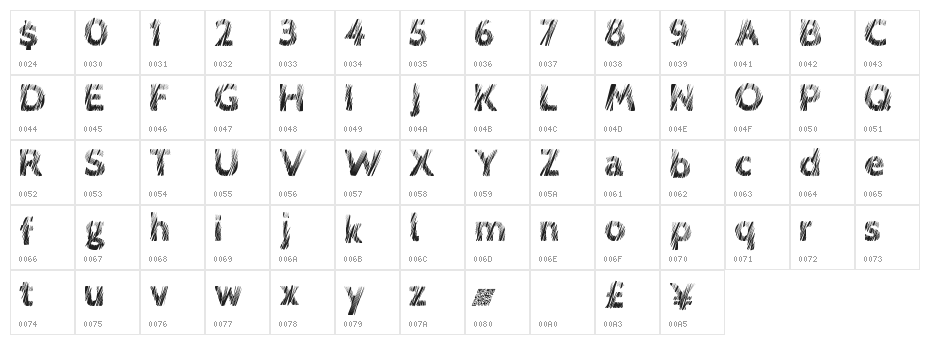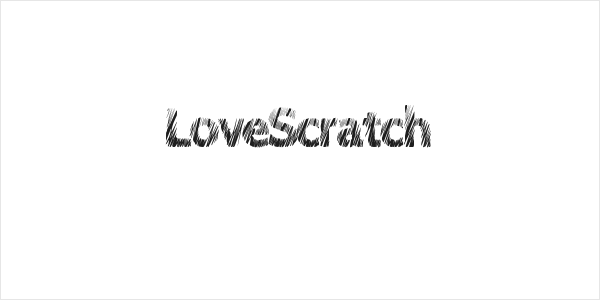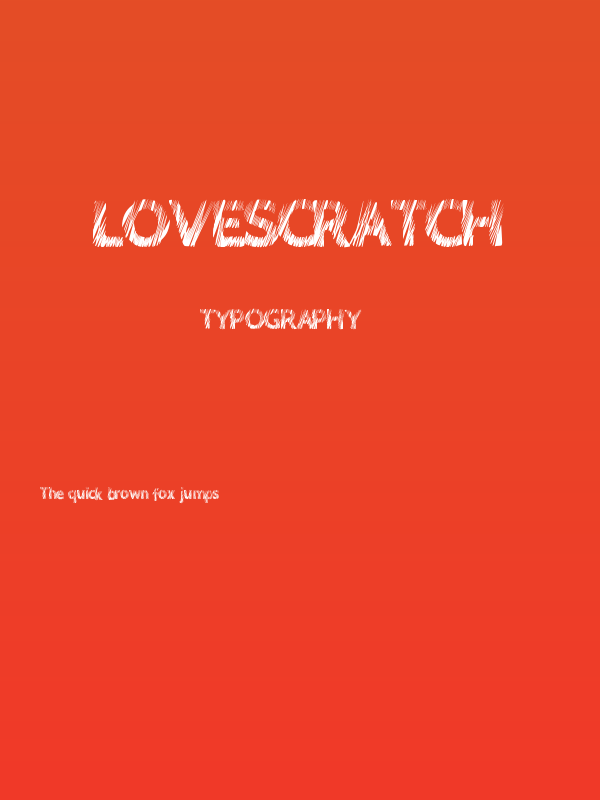
LoveScratch Font
LoveScratch Description
This font is characterized by its dynamic, scratch-like texture, giving it a unique and edgy appearance. The letters are bold and slightly slanted, with a hand-drawn feel that adds a sense of movement and energy. The uppercase and lowercase letters maintain a consistent style, with each character featuring a series of diagonal lines that create a textured effect. The numbers and special characters follow the same design, ensuring a cohesive look across all elements. This font's distinctive style makes it stand out, ideal for projects that require a bold and artistic touch.
Overall StyleModern, Artistic
Use CaseHeadlines, Logos, Artistic projects
Proposed ProjectsIdeal for album covers, posters, graffiti art, and creative branding projects.